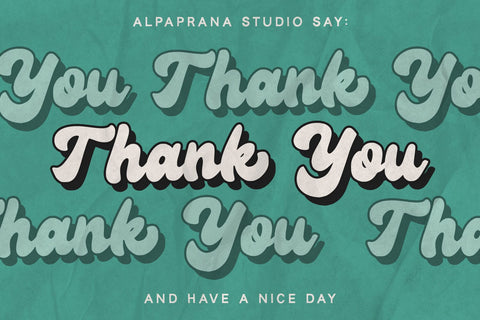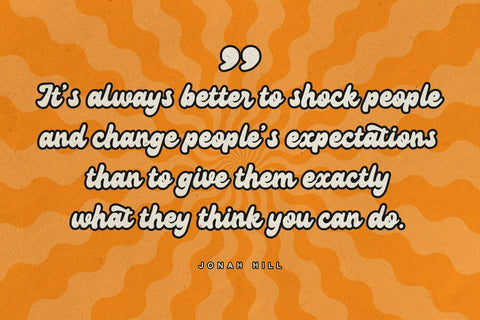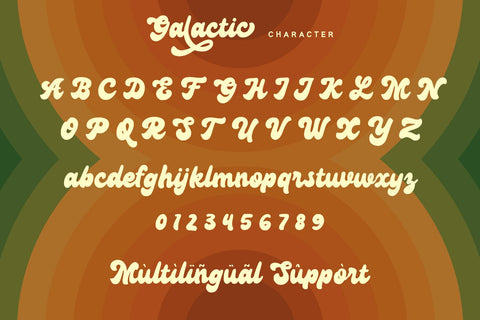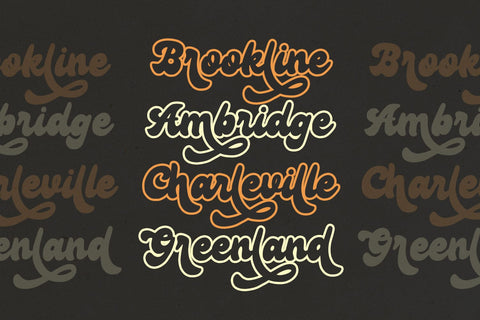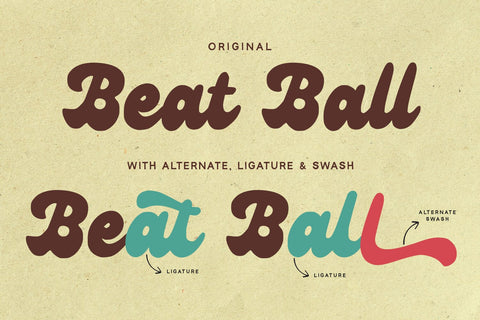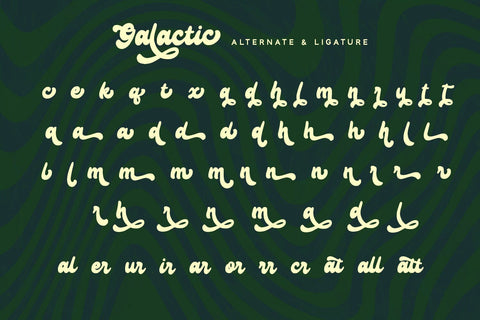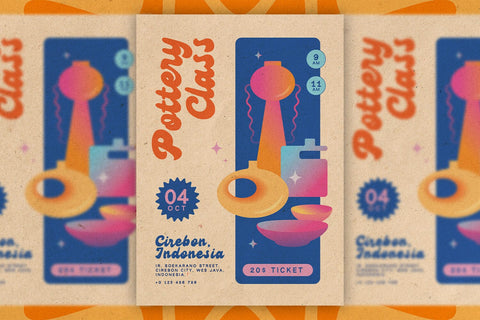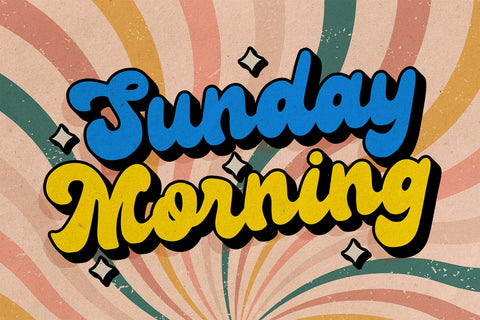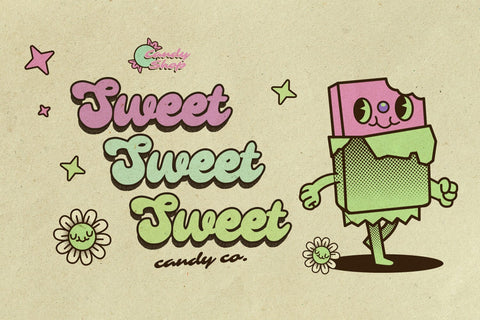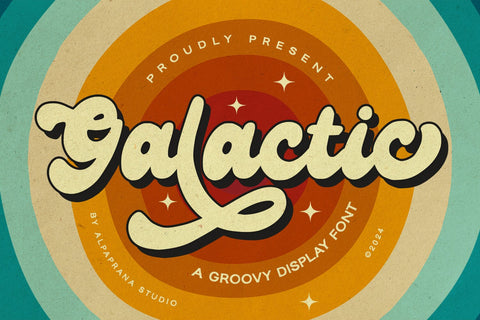
Galactic - Groovy Font
Galactic is a groovy script font with authentic and classic feels. It will be perfectly used for Branding, Logo Design, Lettering, Logotype, Clothing, Poster, magazine, packaging, posters, shopping bags, t-shirts, book covers, photography, special events and other design project.